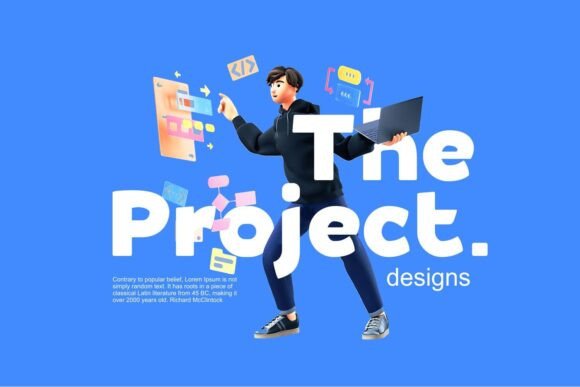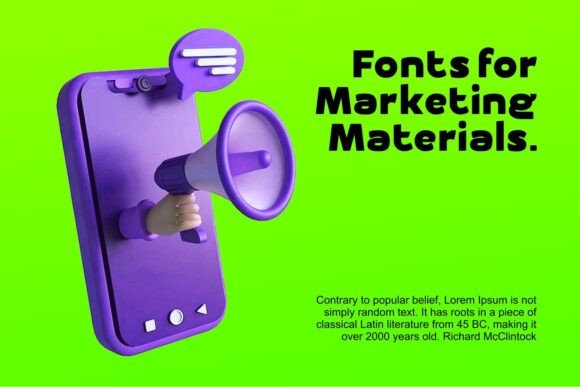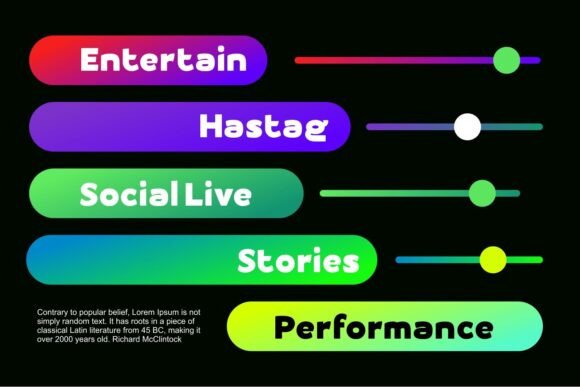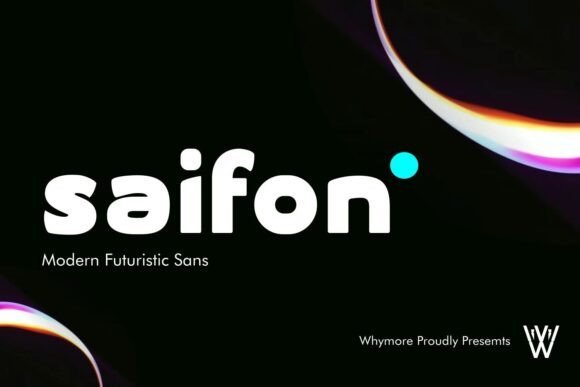
Introduction to Saifon Font
Introducing Saifon, a bold and modern sans serif font crafted for today’s visionaries.
Designed to meet the needs of graphic designers, UI/UX professionals, logo creators, web developers, and content designers, Saifon combines futuristic aesthetics with exceptional versatility to elevate your projects with style and precision With its sleek lines and smooth curves, Saifon is the perfect choice for branding, tech-driven visuals, startup presentations, and video content creation.
Saifon Font offers exceptional quality and versatility, making it a valuable addition to your design toolkit. Whether you’re creating for personal projects or commercial use, Saifon Font delivers professional results.